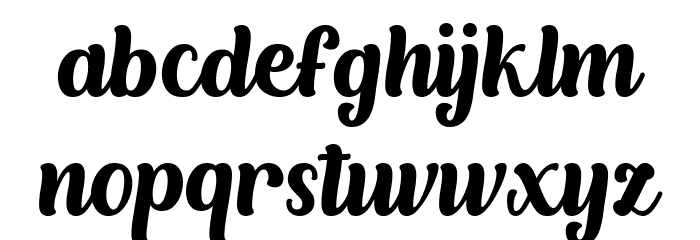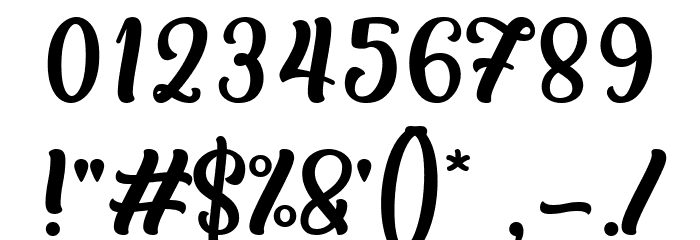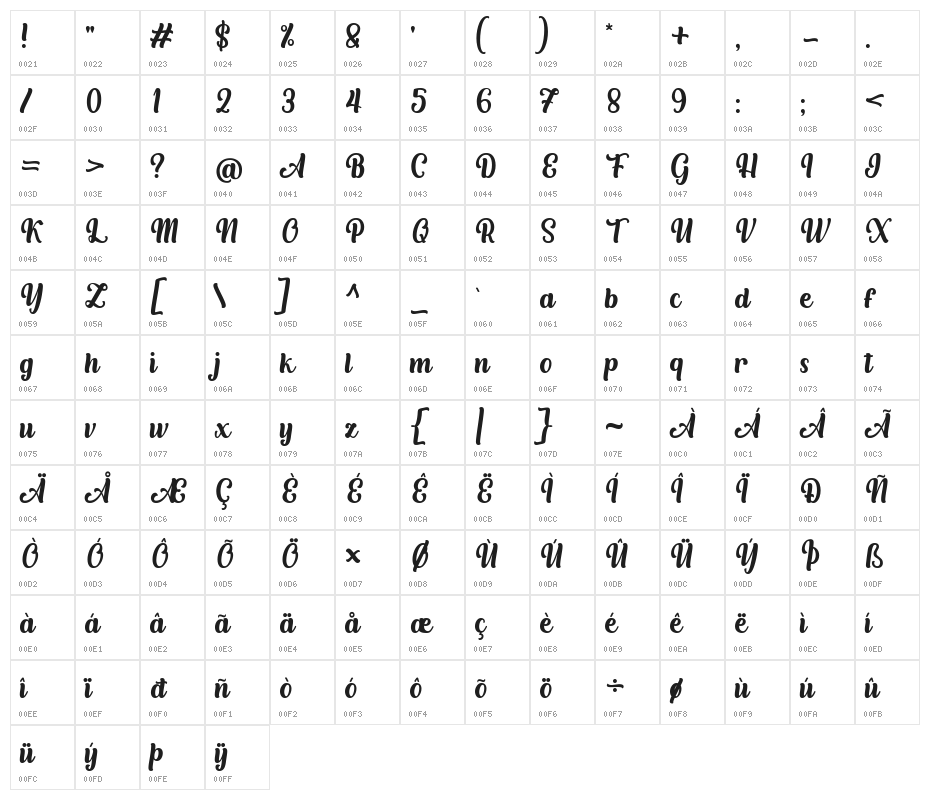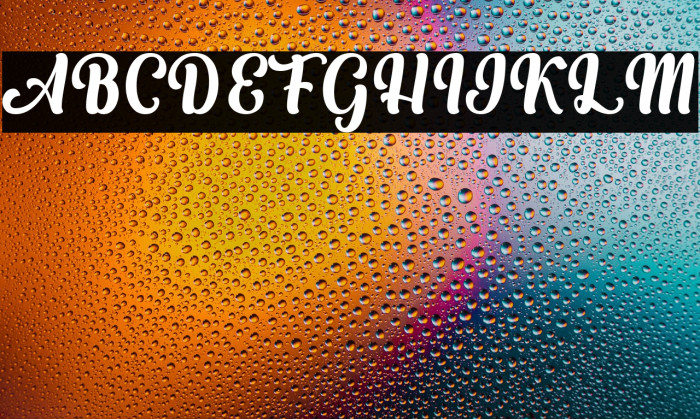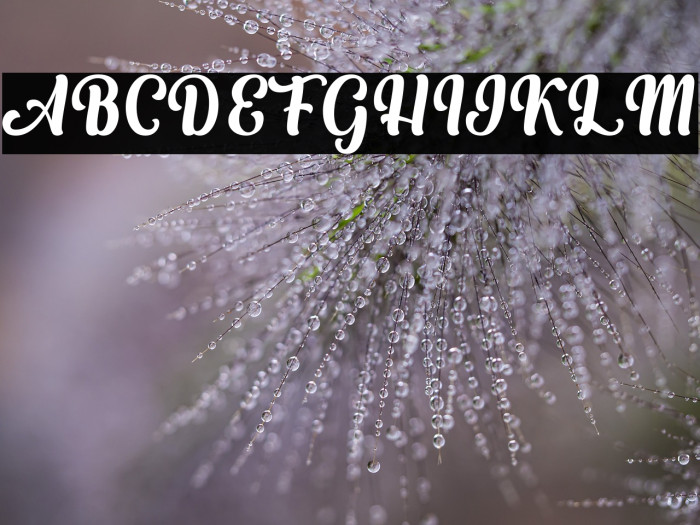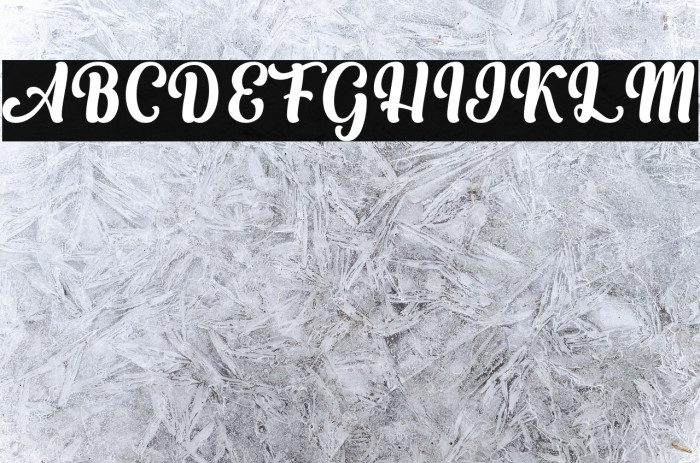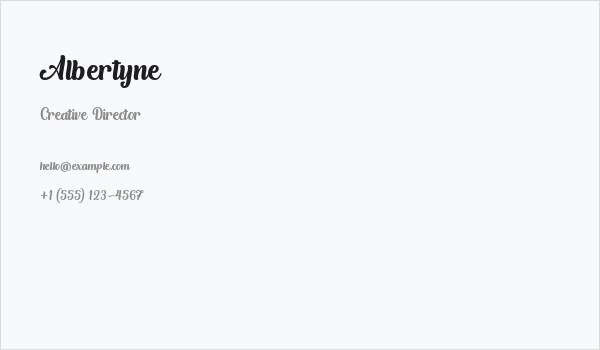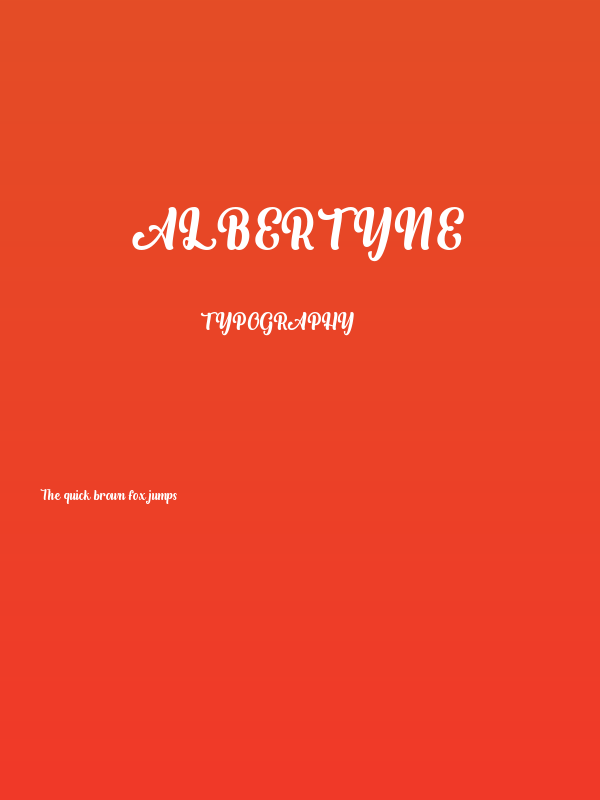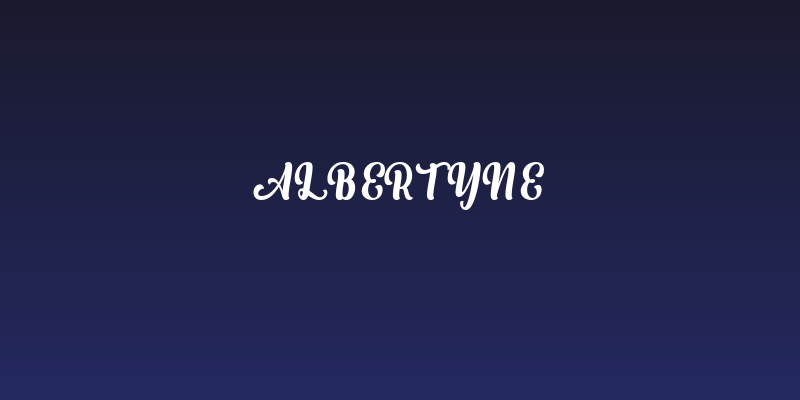
Albertyne Font
This font features a playful and elegant script style with a bold presence. The characters are smoothly connected, giving a sense of fluidity and movement. The uppercase letters are slightly more ornate, with subtle flourishes that add a touch of sophistication. The lowercase letters maintain a consistent flow, making it easy to read while retaining its decorative charm. The numerals and special characters are designed to match the overall style, ensuring a cohesive look across all text elements. This font is perfect for projects that require a personal and artistic touch, such as invitations, greeting cards, and branding materials.
A bold, elegant script font with fluid, connected characters and subtle flourishes.
- Font: Albertyne
- Proposed Projects: Ideal for invitations, greeting cards, branding, and artistic projects.
- Category: Script